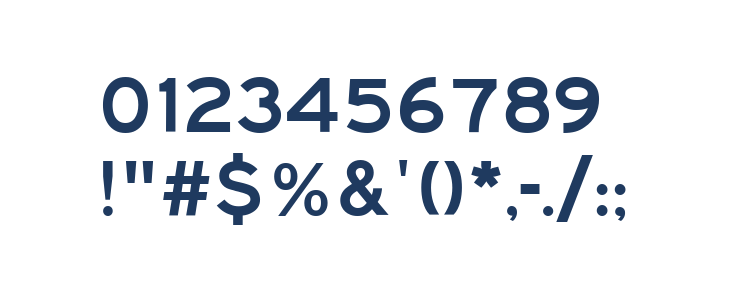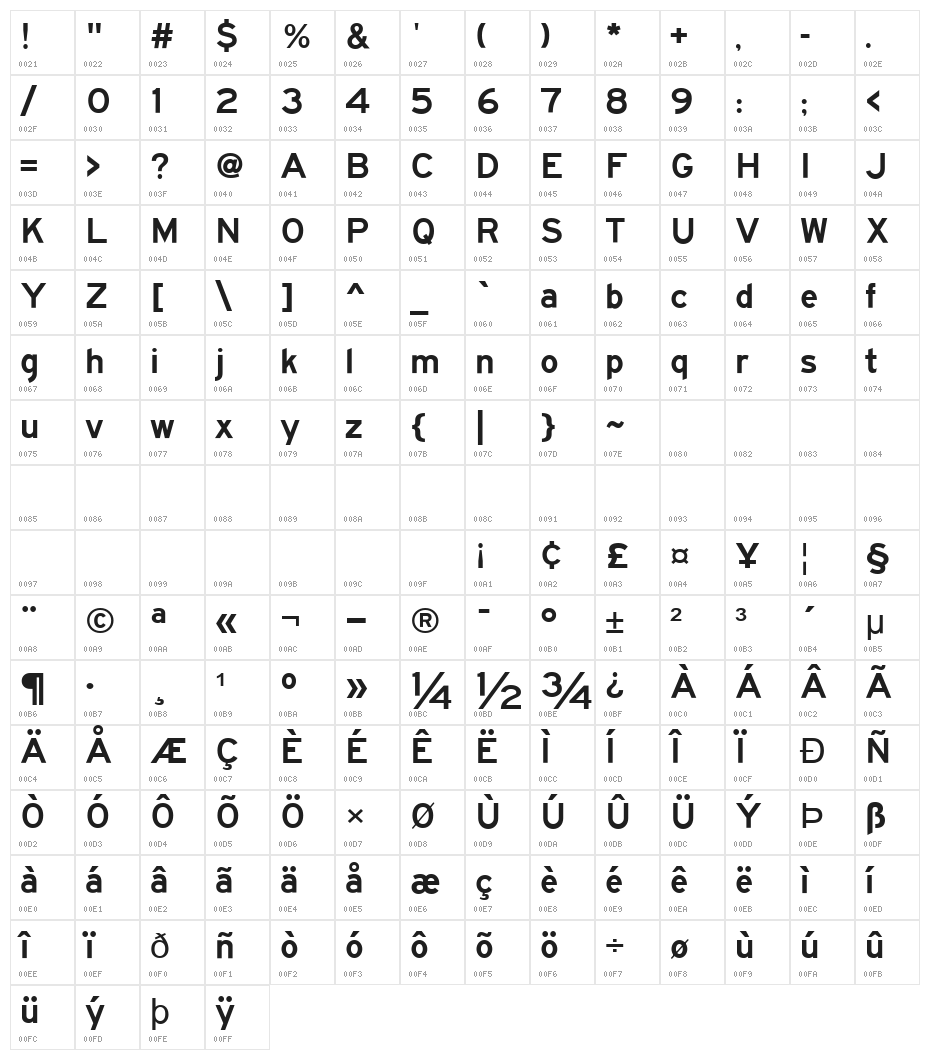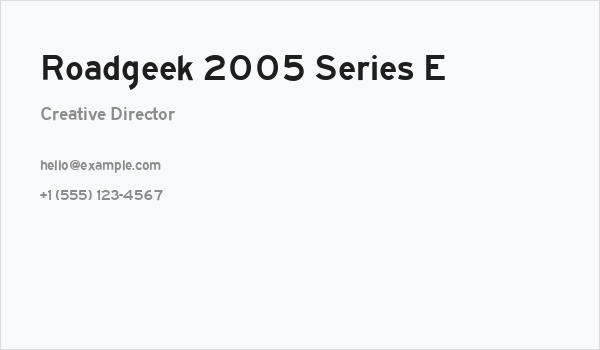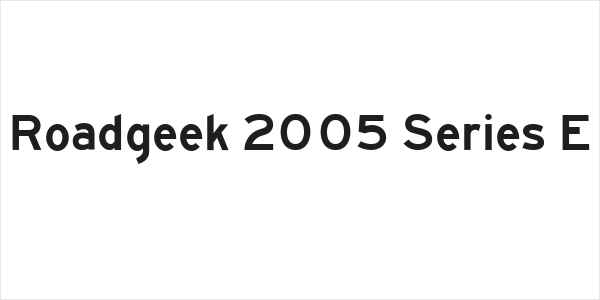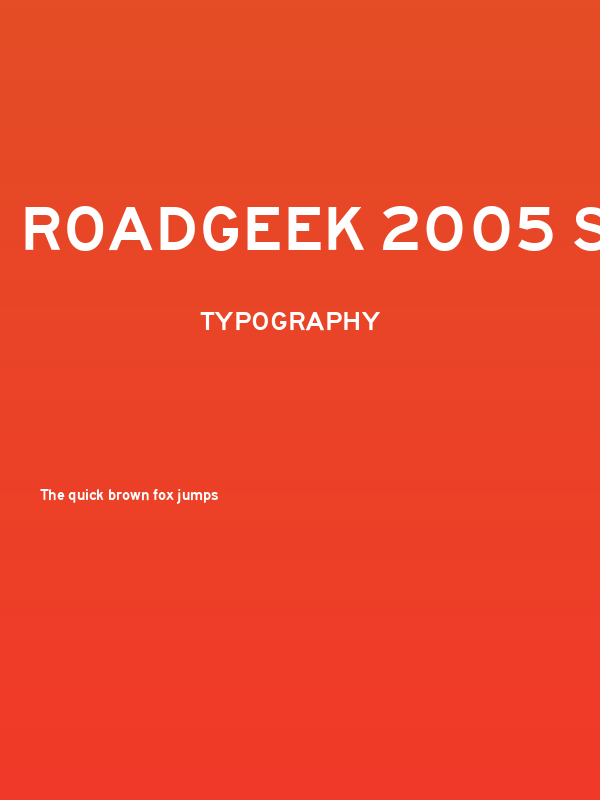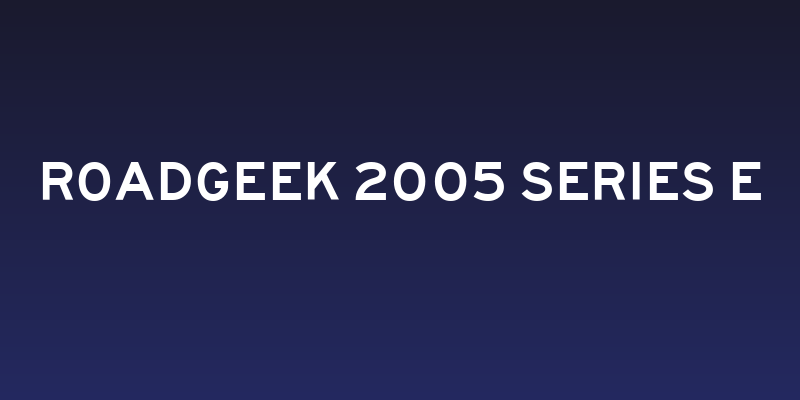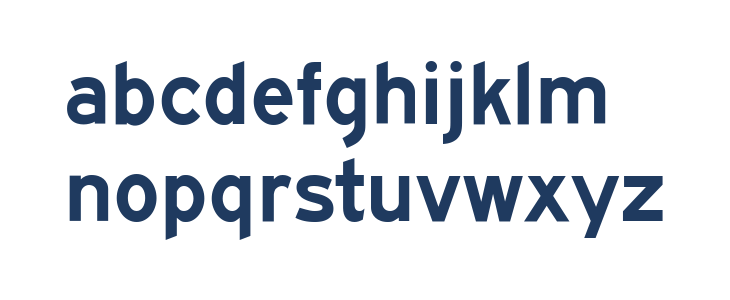
Roadgeek 2005 Series E Font
Roadgeek 2005 Series E Description
This font features a clean and modern sans-serif design, characterized by its uniform stroke width and geometric shapes. The characters are well-proportioned, offering excellent readability and clarity. Uppercase letters are bold and assertive, while lowercase letters maintain a consistent style that complements the uppercase. The numerals are clear and distinct, making them suitable for both display and informational purposes. Special characters are designed with the same attention to detail, ensuring a cohesive look across all glyphs. The overall appearance is straightforward and professional, ideal for use in environments where clarity and legibility are paramount.
| Use Case | Headlines, Signage, Digital Interfaces |
| Proposed Projects | Ideal for road signage, informational displays, digital interfaces, and branding materials. |